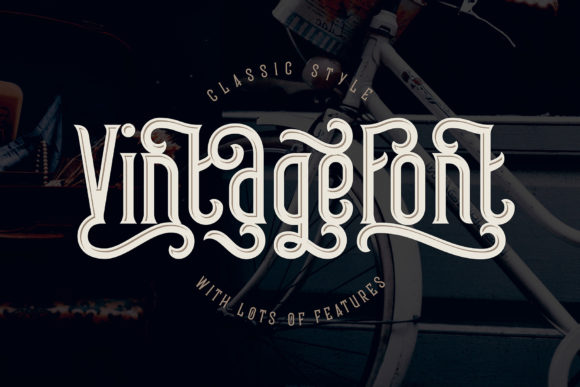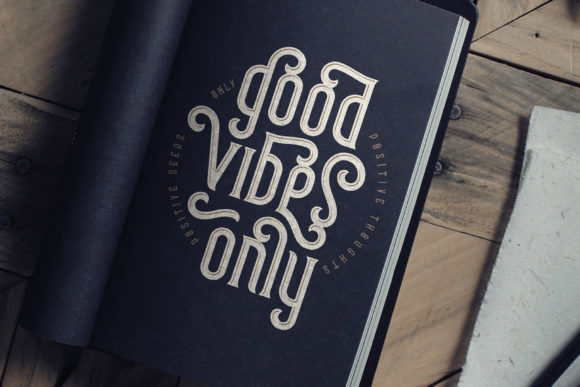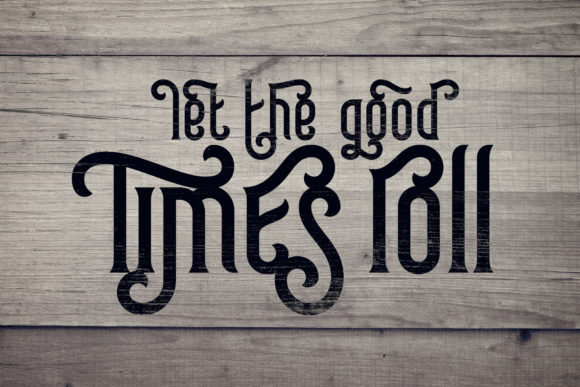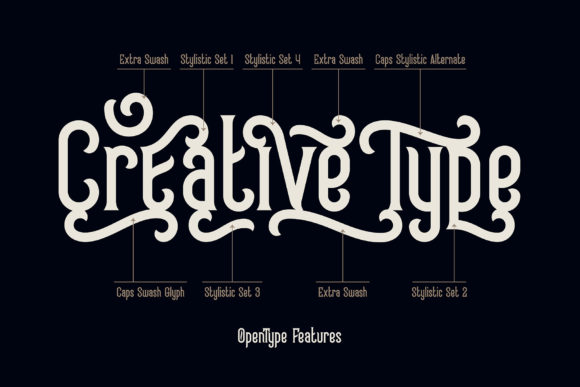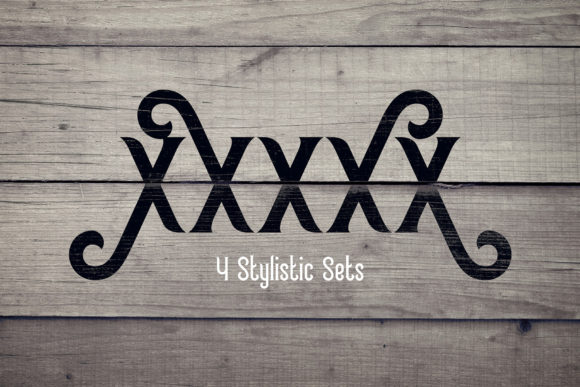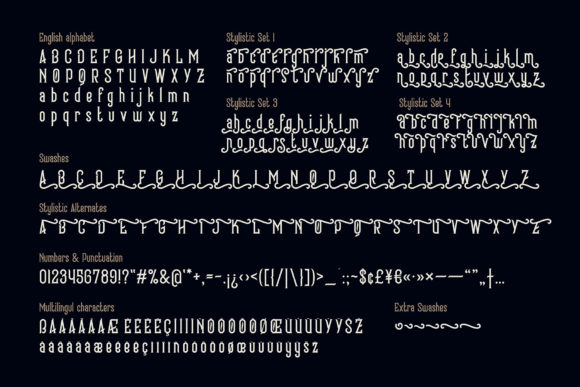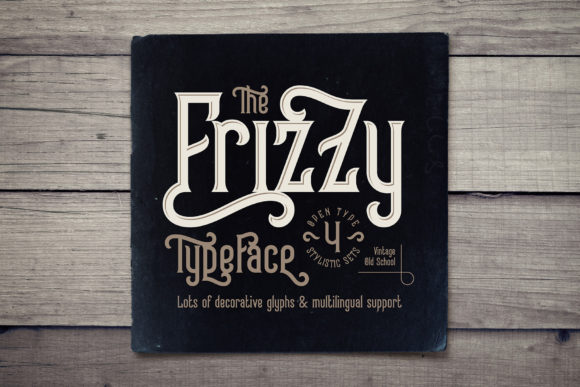
Frizzy Font: Elevate Your Designs with Smooth Curves and Elegance
Are you tired of using the same old fonts in your designs? Do you want to add a touch of elegance and sophistication to your fashion branding or editorial projects? Look no further than Frizzy Font, a uniquely designed and highly detailed display font that is sure to take your designs to the next level.
What is Frizzy Font?
Frizzy Font is a beautifully crafted display font that is defined by its smooth curves and elegant lines. Its unique design makes it perfect for fashion branding, editorial designs, and any other project that requires a touch of sophistication. With Frizzy Font, you can add a level of refinement and luxury to your designs that will set them apart from the rest.
Key Features of Frizzy Font
- Smooth Curves: Frizzy Font features smooth, flowing curves that give it a elegant and refined look.
- Highly Detailed: The font is highly detailed, making it perfect for use in high-end fashion branding and editorial designs.
- Unique Design: Frizzy Font has a unique design that sets it apart from other fonts, making it perfect for designers who want to add a touch of personality to their projects.
- Versatile: The font is versatile and can be used in a variety of projects, from fashion branding to editorial designs.
Why Use Frizzy Font?
There are many reasons why you should consider using Frizzy Font in your designs. Here are just a few:
- Add Elegance to Your Designs: Frizzy Font adds a level of elegance and sophistication to your designs, making them perfect for high-end fashion branding and editorial projects.
- Stand Out from the Crowd: The unique design of Frizzy Font ensures that your designs will stand out from the crowd and grab attention.
- High-Quality: The font is of high-quality, making it perfect for use in professional designs.
How to Use Frizzy Font
Using Frizzy Font in your designs is easy. Here are a few tips to get you started:
- Use it as a Title Font: Frizzy Font is perfect for use as a title font in editorial designs, such as magazines and newspapers.
- Add it to Your Fashion Branding: The font is perfect for use in fashion branding, such as logos, packaging, and advertising.
- Experiment with Different Sizes: Frizzy Font looks great in large and small sizes, so don’t be afraid to experiment with different sizes to find the one that works best for your design.
In conclusion, Frizzy Font is a uniquely designed and highly detailed display font that is perfect for fashion branding and editorial designs. Its smooth curves and elegant lines make it a great addition to any design project. With its versatility, ease of use, and high-quality design, Frizzy Font is a great choice for designers who want to add a touch of elegance and sophistication to their designs. So why wait? Add Frizzy Font to your design projects today and see the difference it can make.
- Pair it with Other Fonts: Frizzy Font looks great when paired with other fonts, so don’t be afraid to experiment with different font combinations.
- Use it in Digital Designs: The font is perfect for use in digital designs, such as websites and social media graphics.